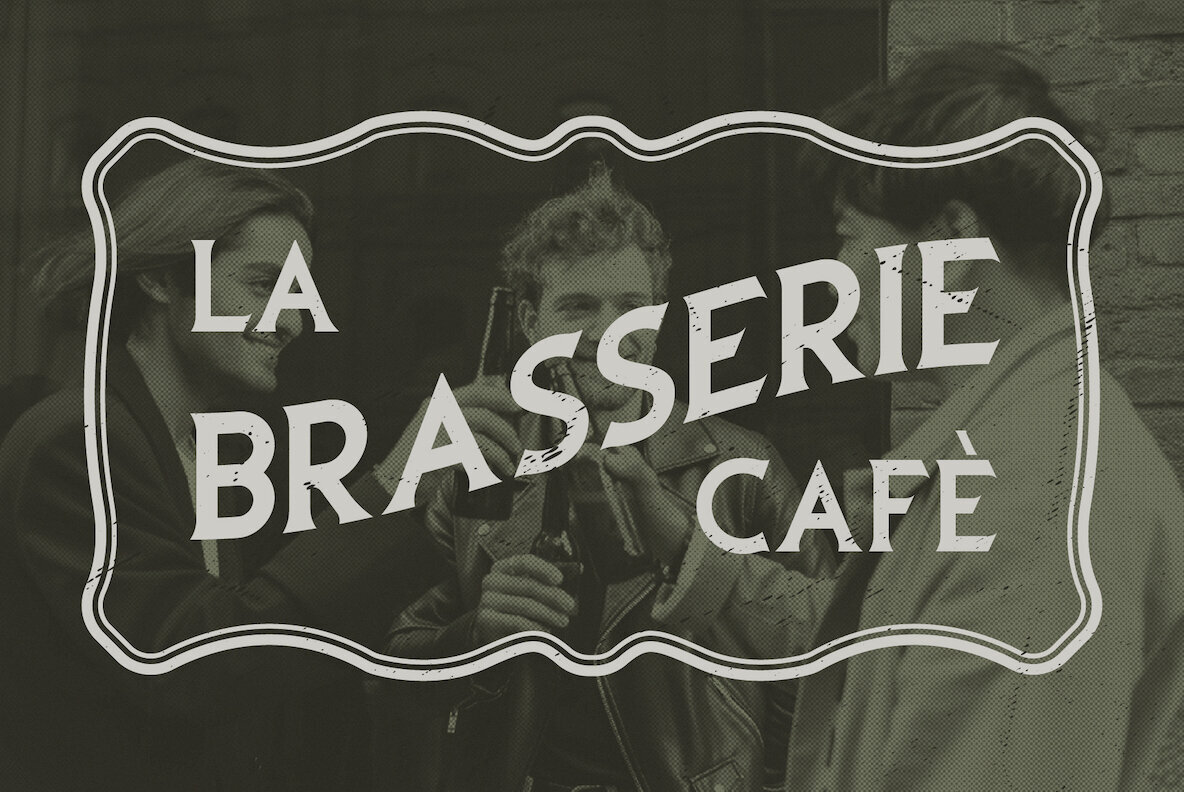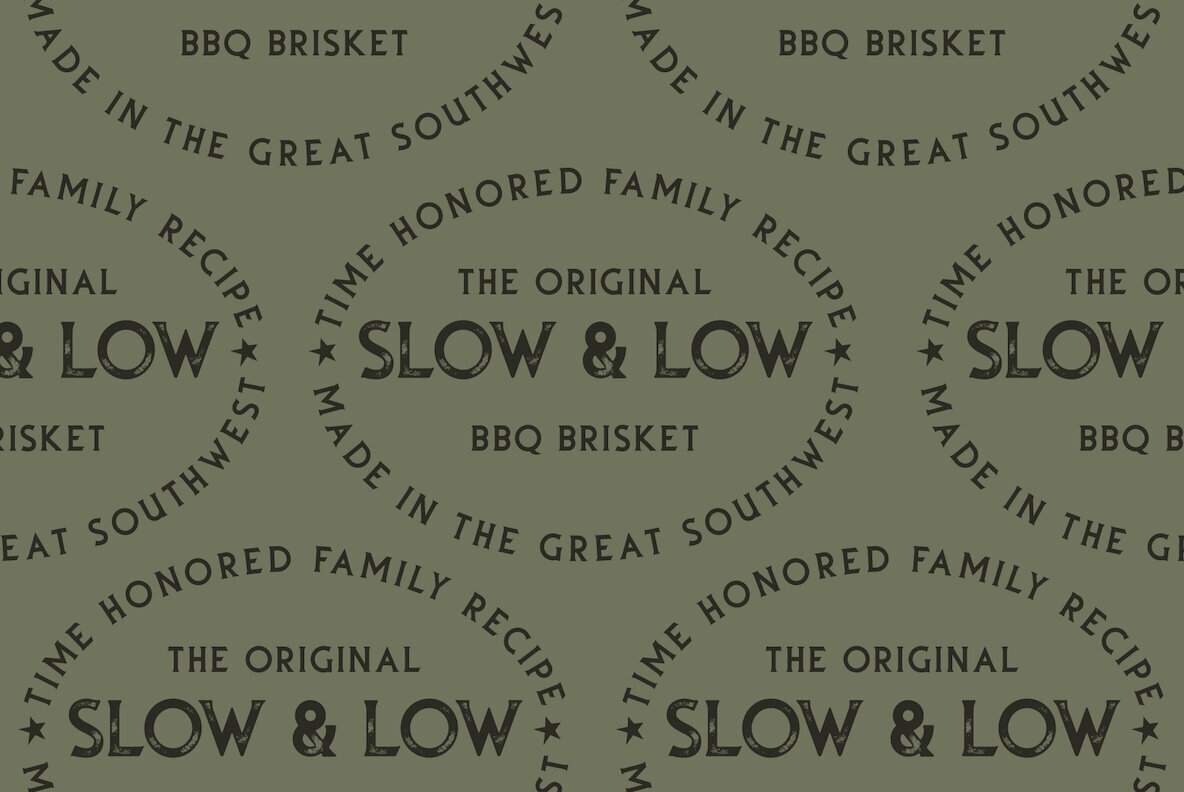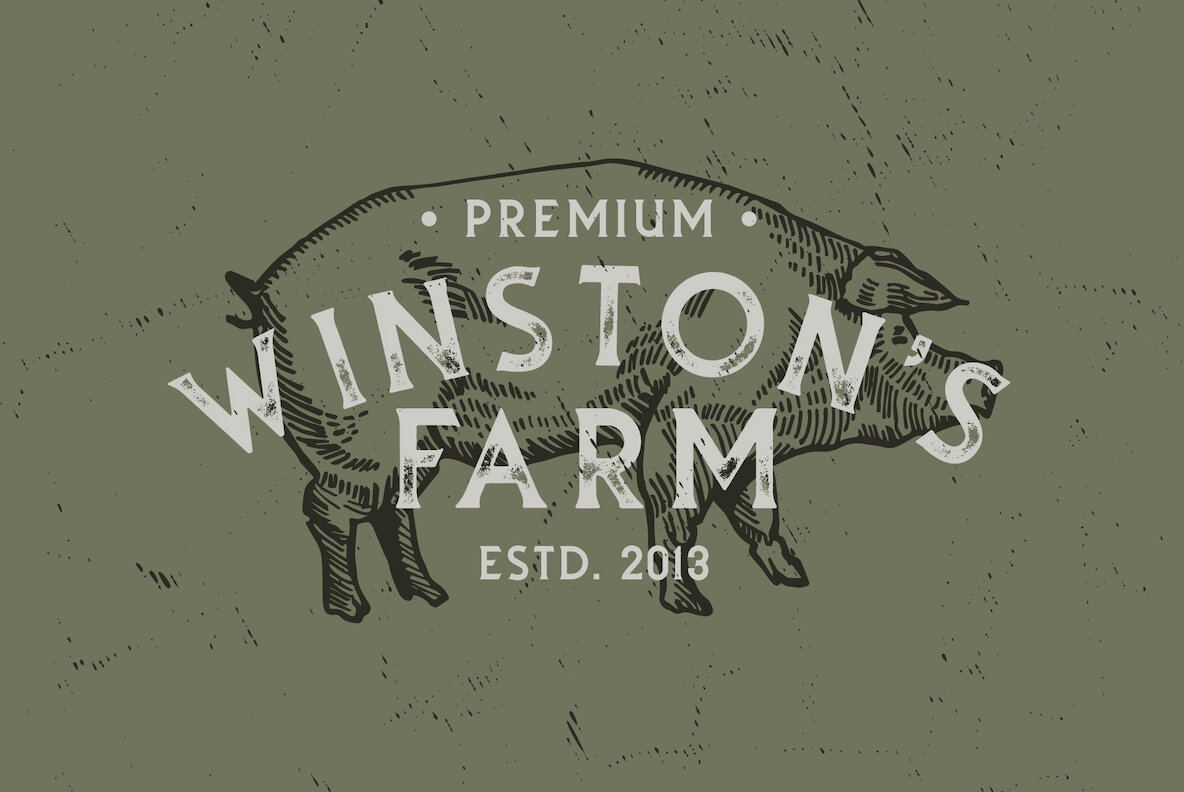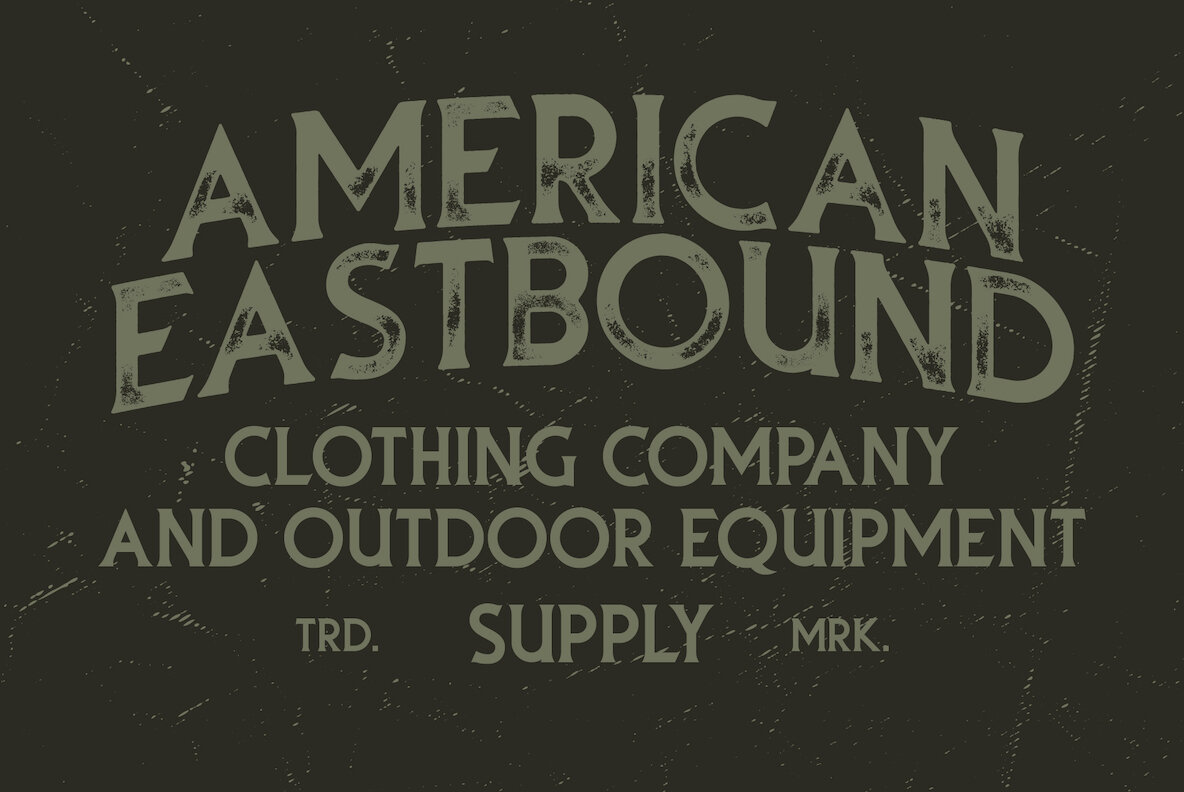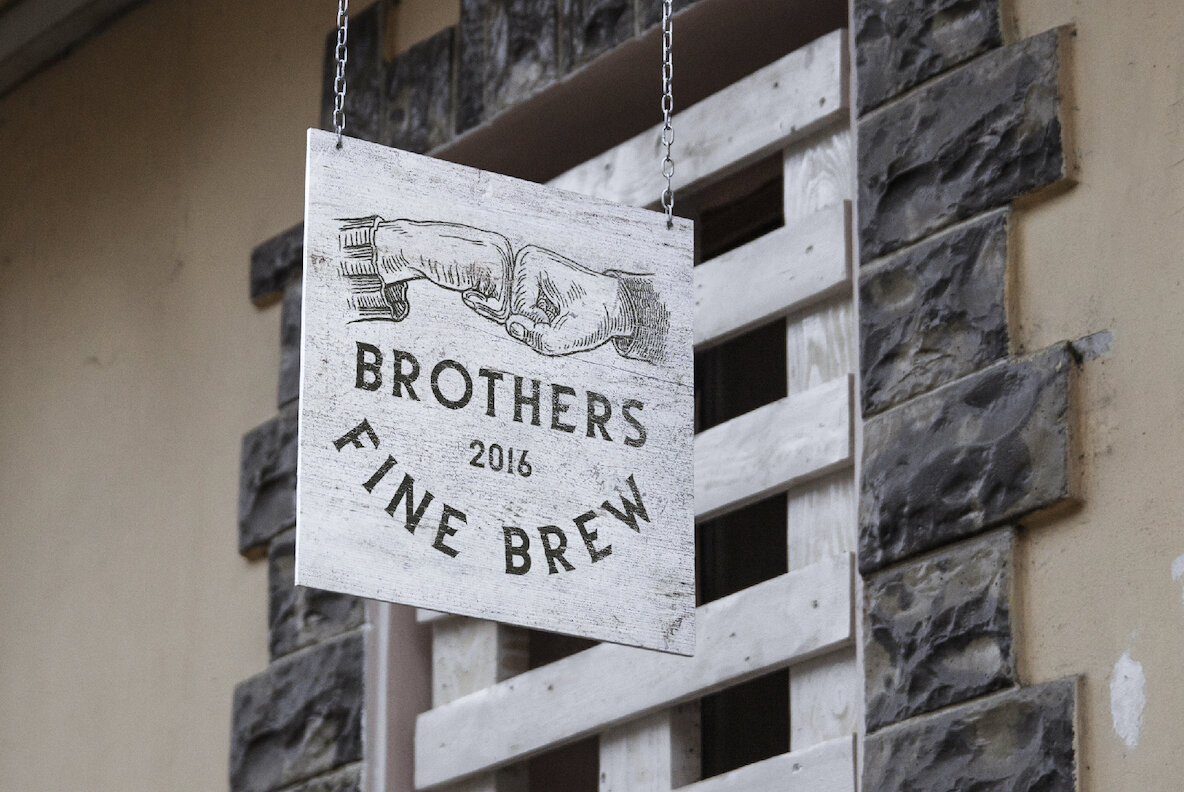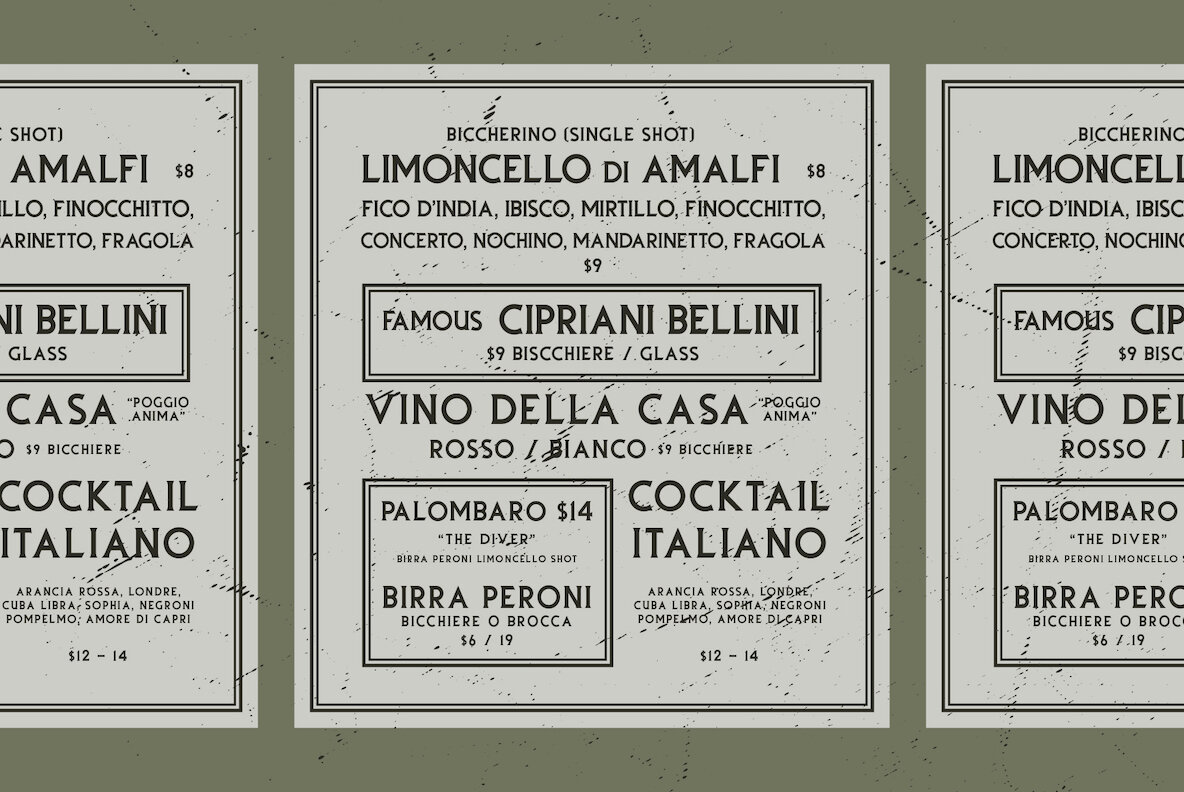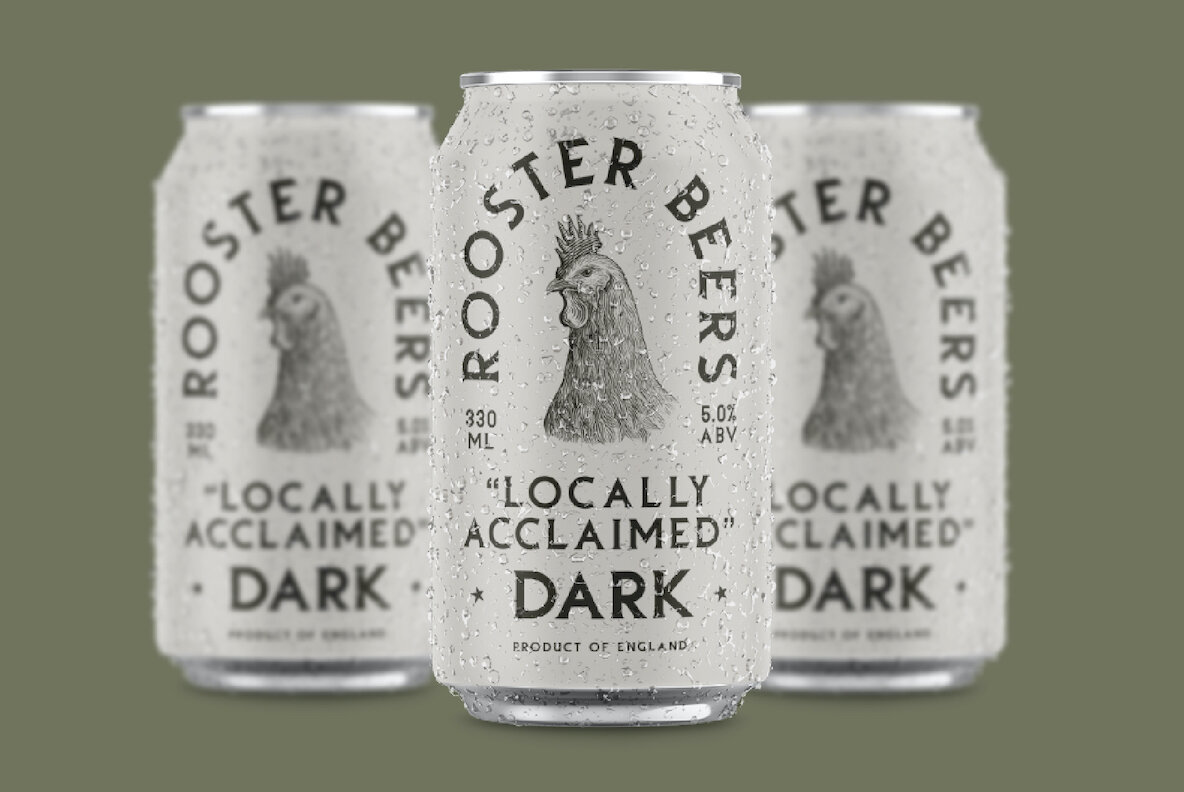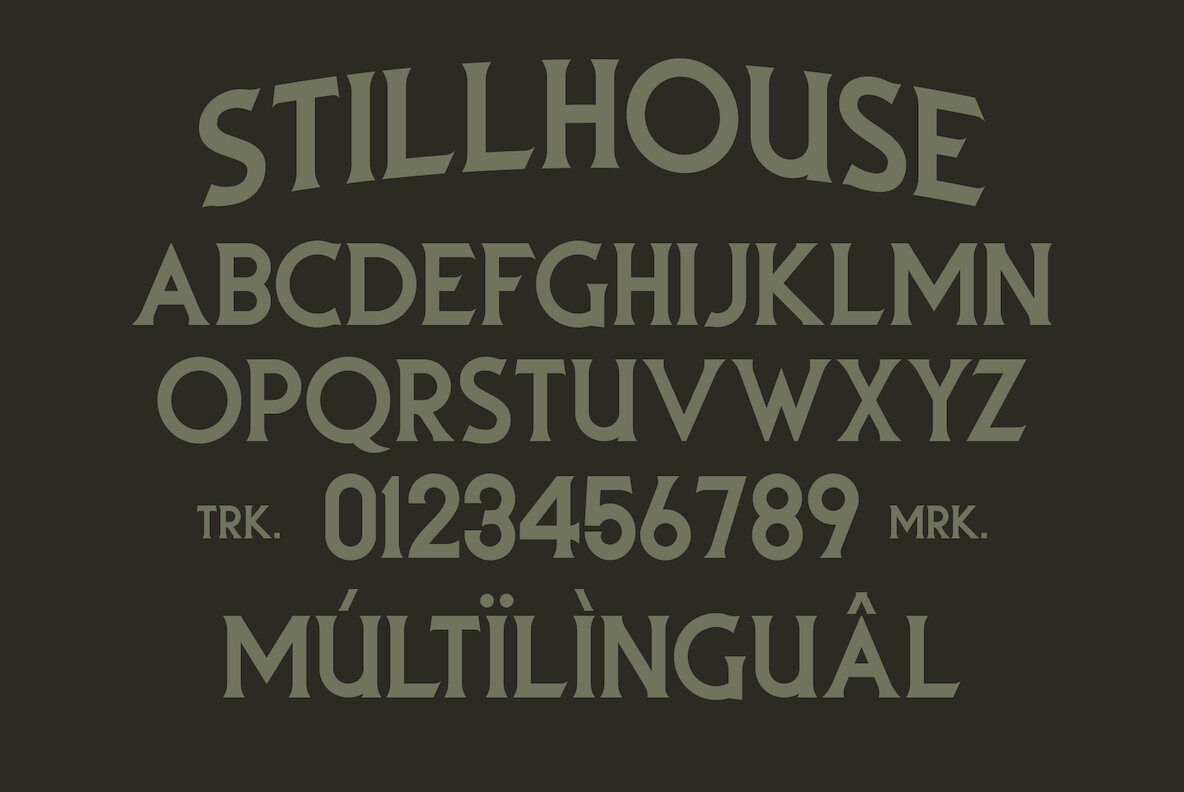
Stillhouse Font
Stillhouse Regular
Stillhouse Textured
Stillhouse is a vintage serif font that features 2 styles - Textured & Solid. This typeface is great for achieving that rustic aesthetic which is popular in restaurant branding, apparel designs and product packaging.